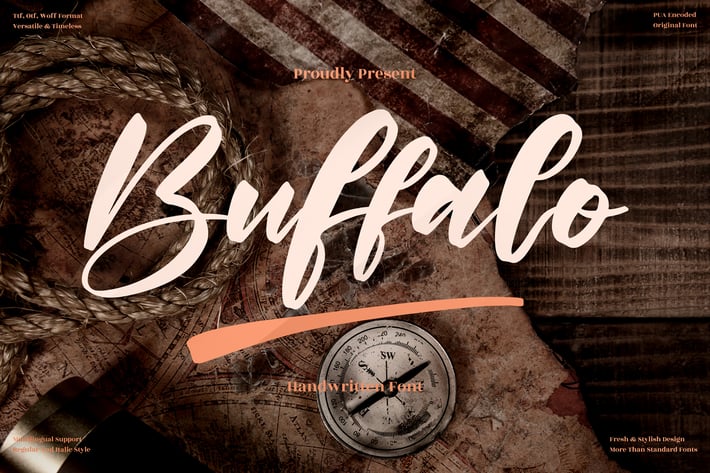
Buffalo Handwritten Font
Buffalo is a bold and free-flowing handwritten font that exudes confidence and authenticity. With its organic brush strokes and natural texture, it brings a rustic yet stylish charm to any design — perfect for projects that want to feel genuine, modern, and effortlessly creative.
Handwritten brush style with natural texture
Smooth flow and bold contrast for striking readability
Includes regular and italic styles
Branding and logo design
Product packaging and labels
Posters and social media graphics
Fashion and photography portfolios
Lifestyle blogs and magazines
Greeting cards and invitations
Bold, raw, and full of personality — Buffalo captures the spirit of authentic handwritten artistry.